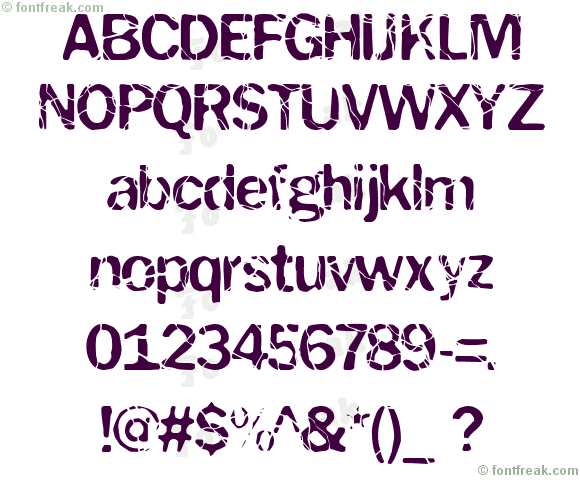
Electrickle
Electrickle by FONTASTIC! is a captivating display font that exudes an eclectic and energetic vibe, making it a perfect choice for projects that call for a bold and creative flair. Released in 1998, this freeware font showcases a unique combination of playful design and striking visual elements. With its irregular stroke weight and whimsical character shapes, Electrickle stands out as a decorative typeface that captures attention and sparks curiosity.
The font features a distinctive design characterized by its uneven and jagged edges, which add a sense of dynamism and fun. The contrast in stroke weight enhances its visual appeal, while the spacing between characters is thoughtfully arranged to maintain readability without sacrificing its quirky charm. Electrickle's decorative elements give it a lively personality that is ideal for various creative applications.
This font is particularly well-suited for use in vibrant wedding invitations, where its playful nature can set a lighthearted tone. It also excels in movie posters, where its boldness can effectively convey excitement and adventure. Additionally, Electrickle is a great choice for restaurant menus, especially those aiming for a casual and friendly atmosphere, as well as for promotional materials targeting a younger audience, like flyers for music festivals or art shows.
Targeted toward graphic designers, small business owners, and content creators, Electrickle provides a versatile option for anyone looking to infuse their projects with an energetic twist. Its unique character and eye-catching design make it a standout choice in the realm of decorative fonts.